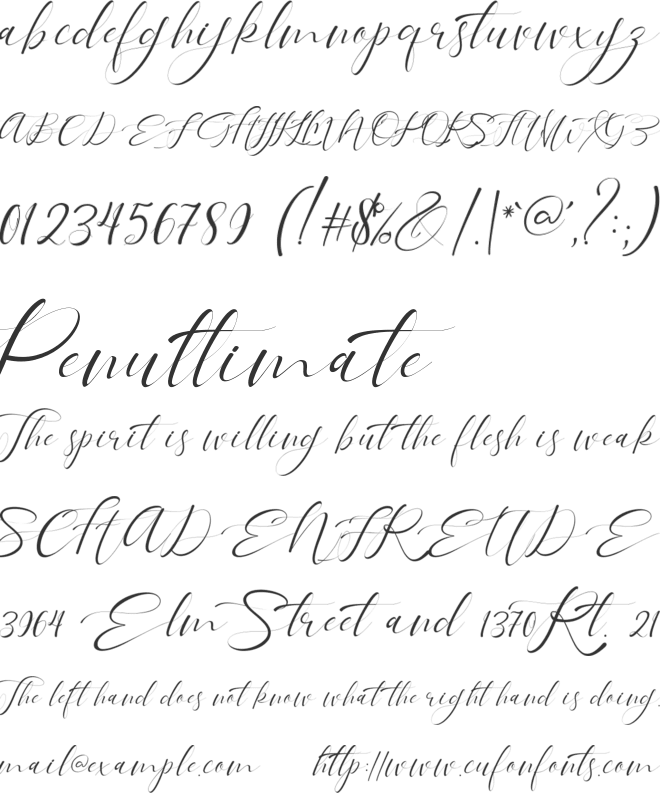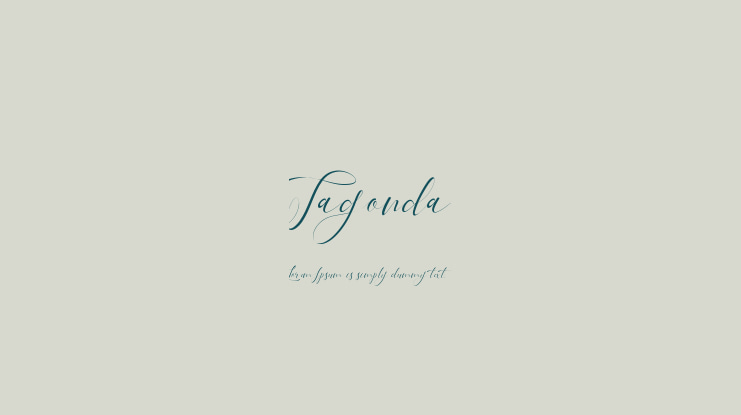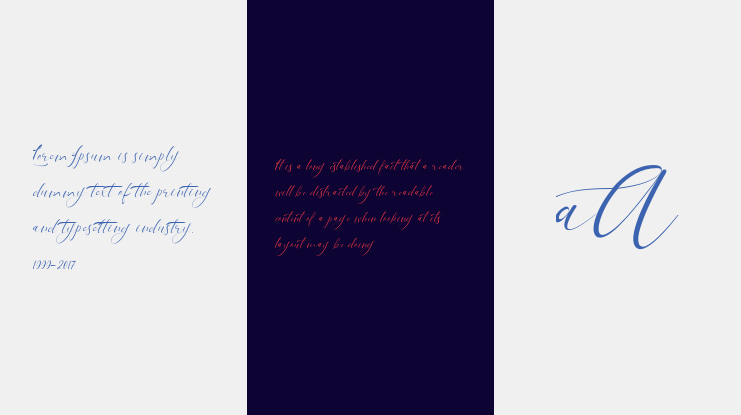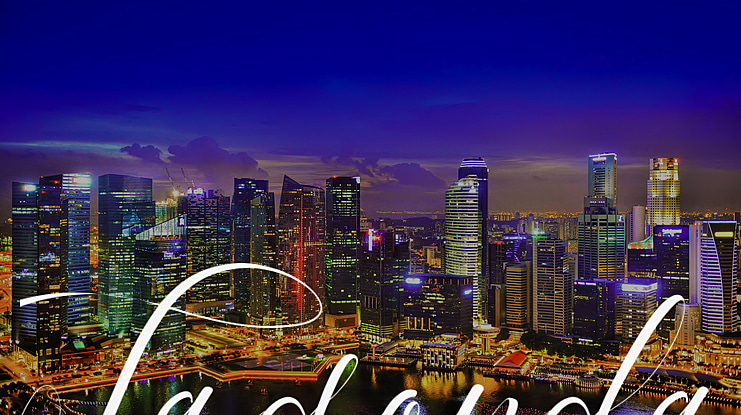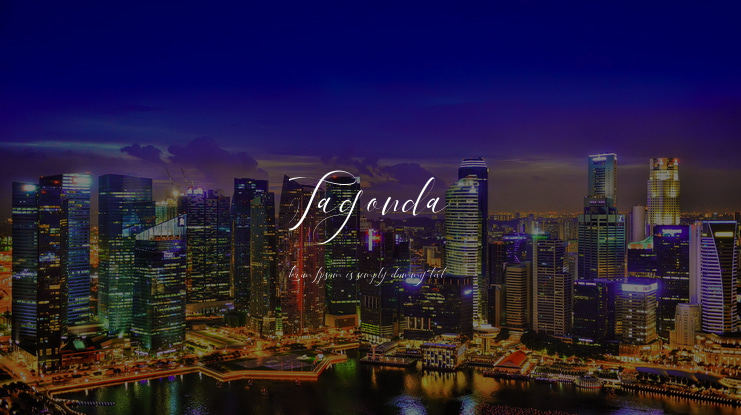
Tagonda Font
Introducing the Beautiful calligraphy font, "Tagonda" ! Tagonda this font Is perfect for logo, invitation, stationery, wedding designs, social media posts, advertisements, product packaging, product designs, label, photography, watermark, special events or anything.
"Tagonda" includes full set of gorgeous uppercase and lowercase letters, multilingual support, punctuation, 195 ligatures, alternates, and stylisticset from ss01 to ss17 gorgeous extras from a to z and beginning and ending numerals swashes. everything can be easily accessed using software that supports OpenType. Like Adobe Indesign, Adobe Illustrator CS, Adobe Photoshop CC, and Corel Draw.